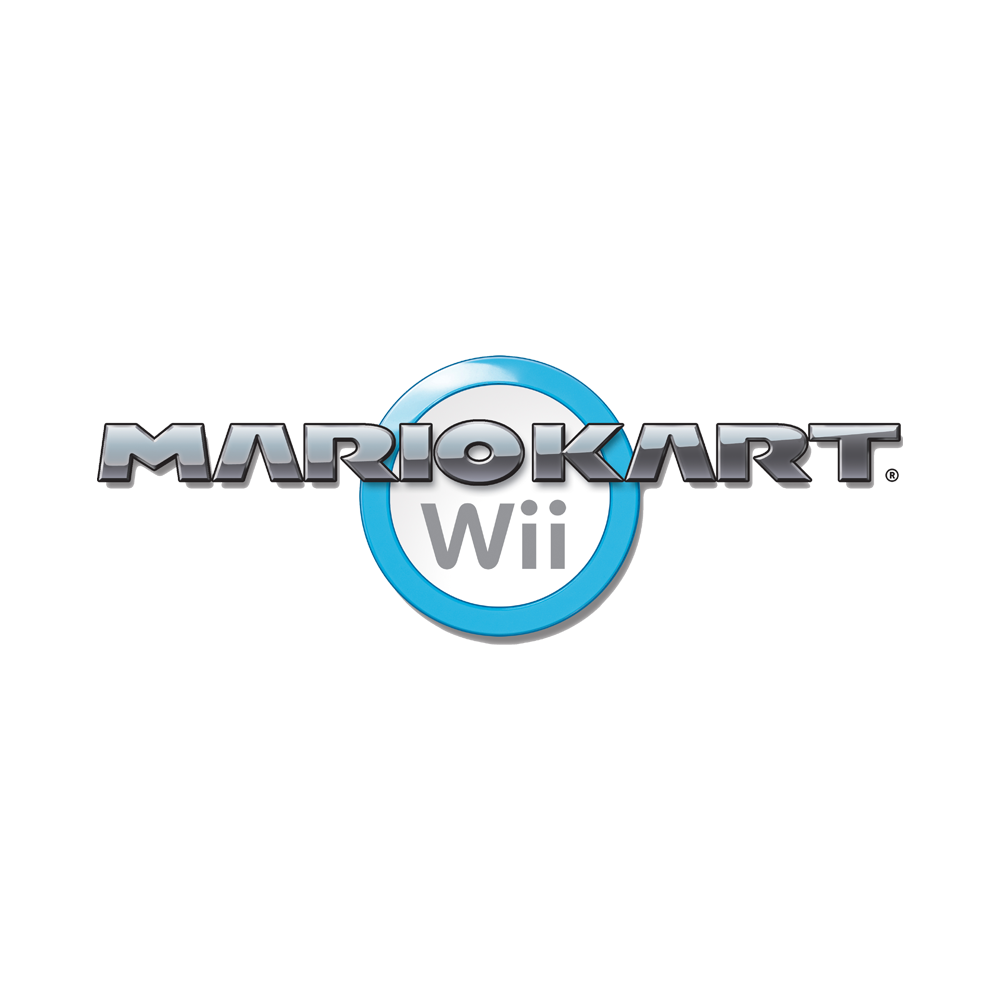
Mario Kart Wii Font
Fonts in UseMario Kart Wii (マリオカートWii) is the sixth installment in the Mario Kart series, released globally in April 2008 and developed/published by Nintendo for the Wii console.
The box art for the game features a logo font that closely resembles the Mario Kart F2 font created by Pokemon-Diamond, available for free download here in the Fonts Used Section in uppercase letters only.